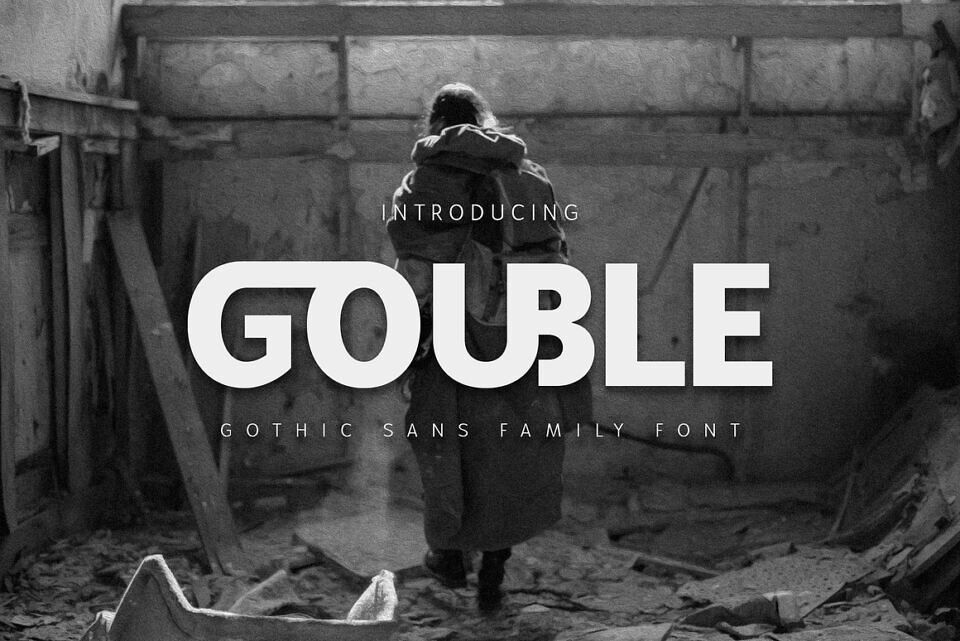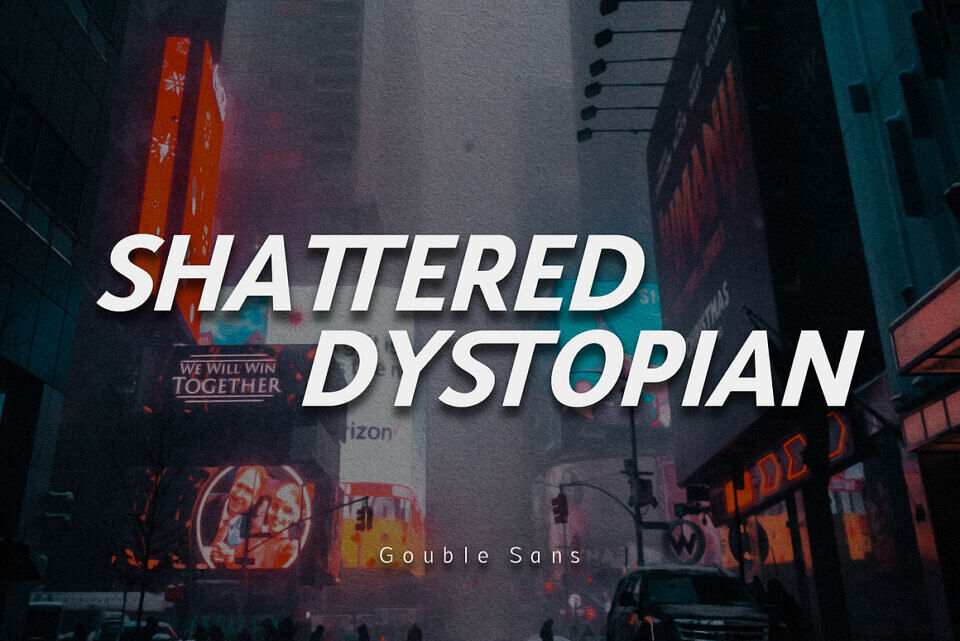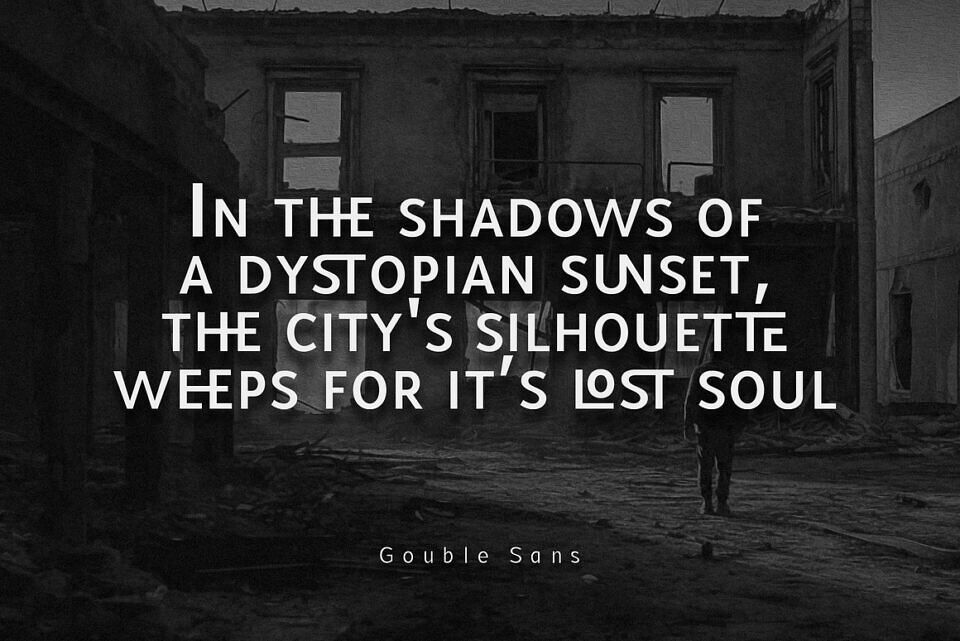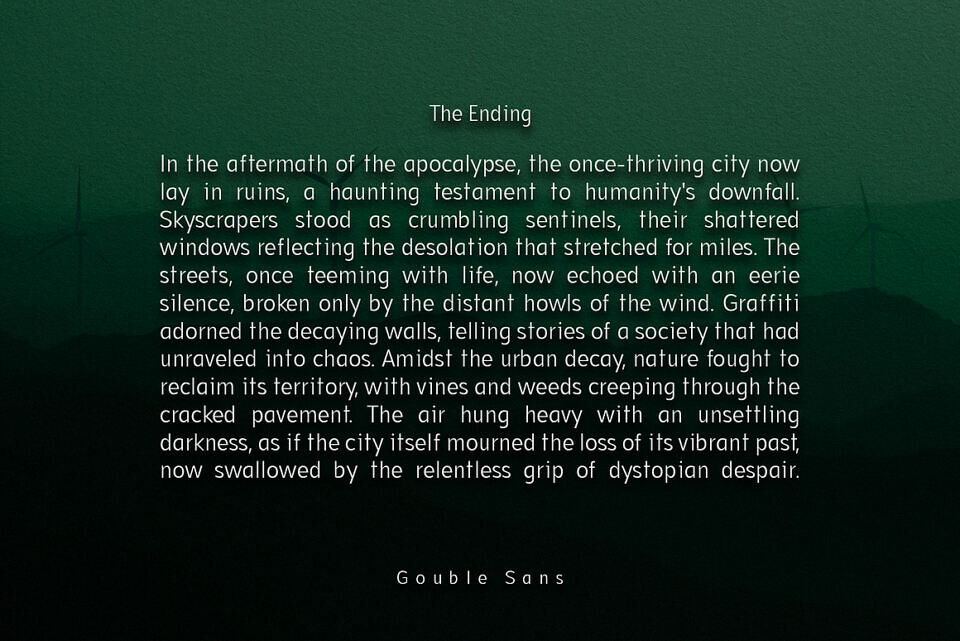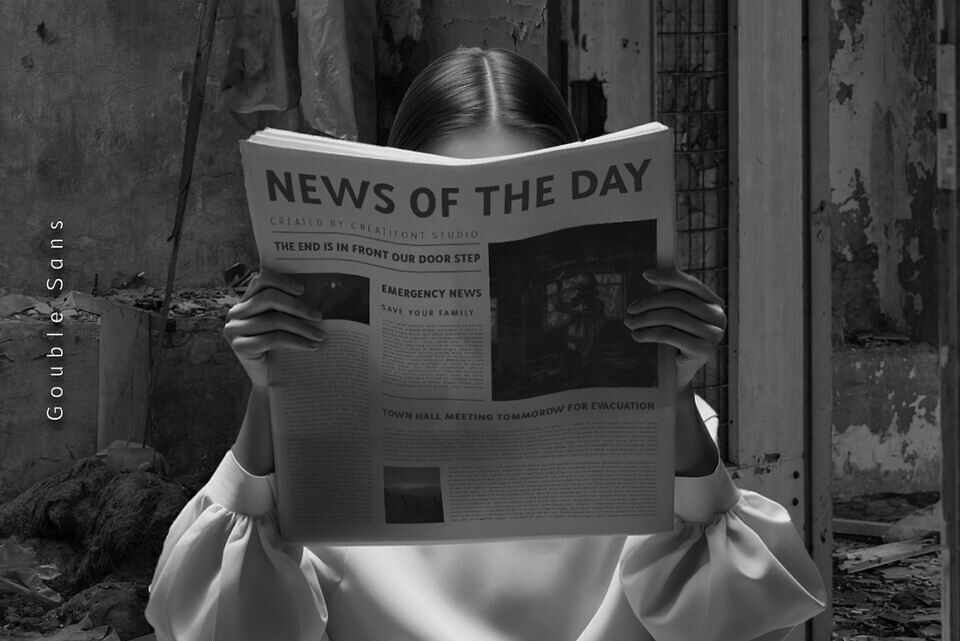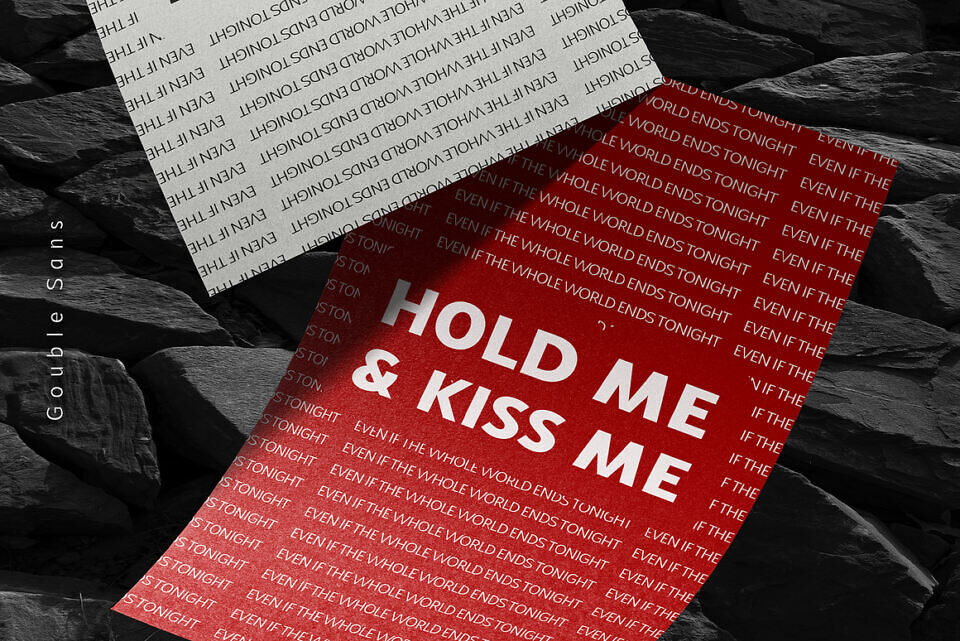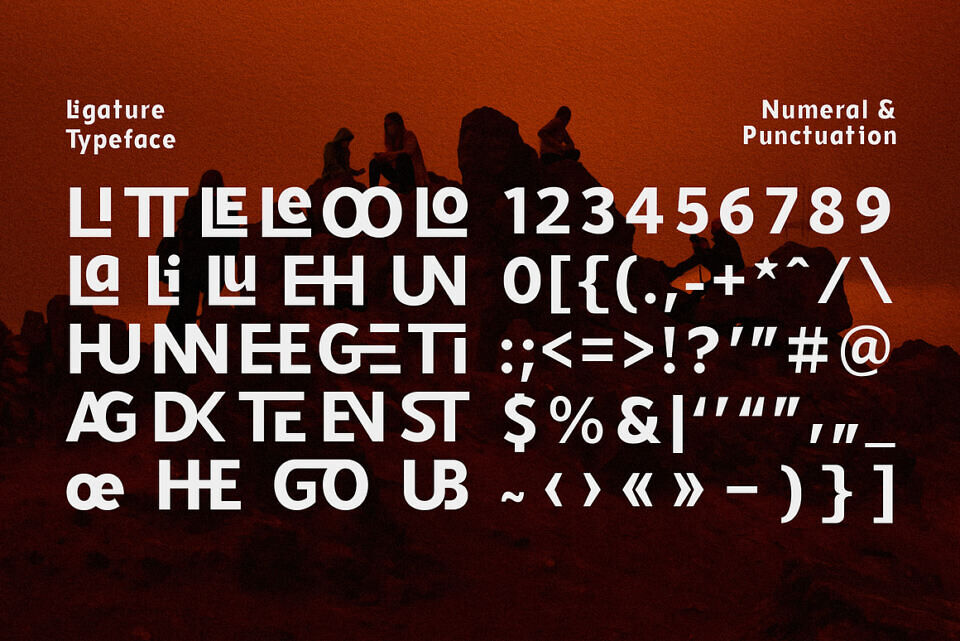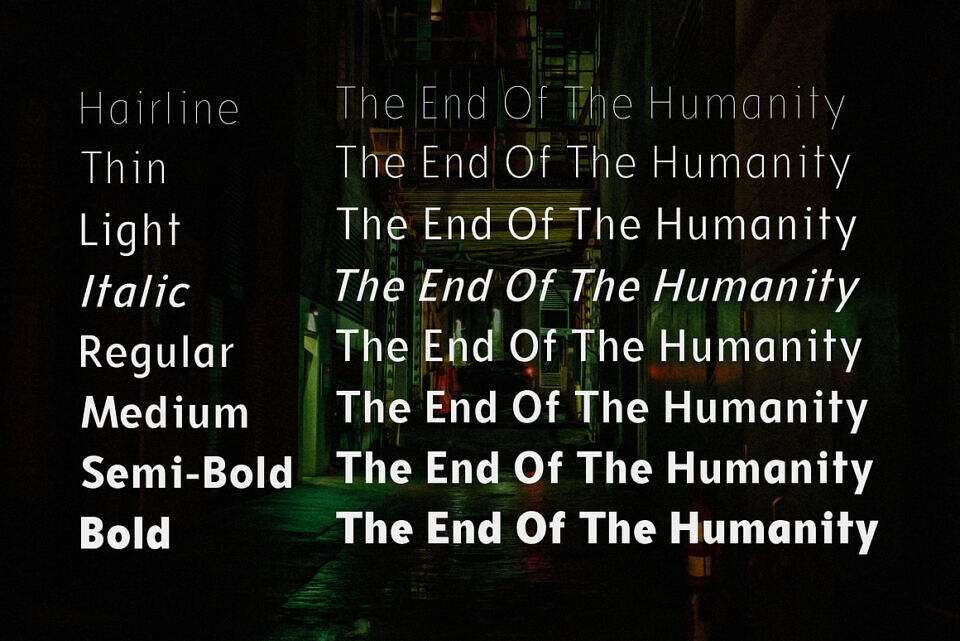
Gouble Font
Gouble is a contemporary gothic sans-serif typeface, characterized by its geometric precision and impactful presence. Its clean lines and remarkable proportions evoke a sense of modern architecture.
Crisp lines and sharp angles lend a modern and professional aesthetic, and consistent stroke weight conveys confidence and impact, ideal for headlines and branding. Gouble comes with many of ligatures that showcase subtle design flourishes, adding personality and memorability.
Its impactful presence and versatile nature make it a valuable asset for designers seeking a confident and contemporary voice for their projects.